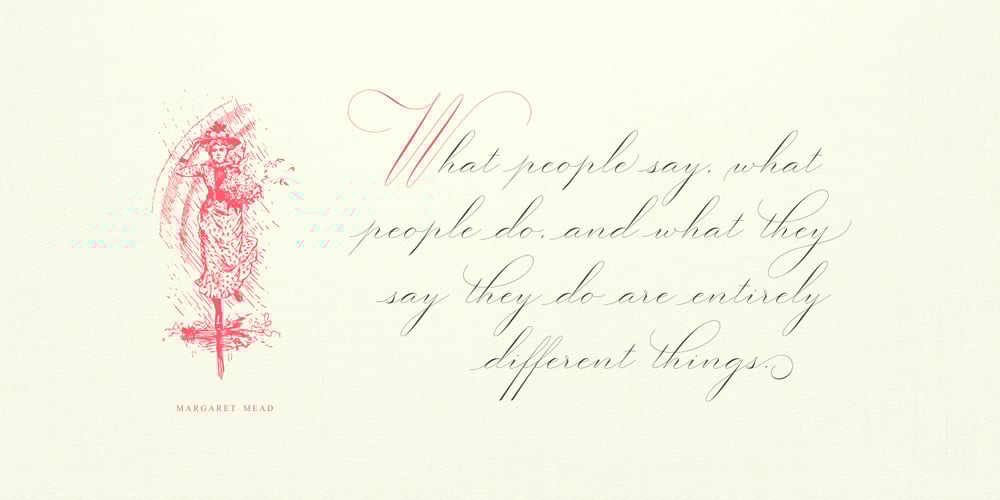
Gatlik Saphir Font Family was designed by Sukjana Almunandar and published by Alcode. Gatlik Saphir contains 1 styles and family package options. Gatlik Saphir is a classic font, I built it with my relaxed hands, designing a classic font but having a modern element in it, which makes it particularly suitable for wedding media, book covers, greeting cards, logos, branding, business cards and certificates, in fact for any design work that requires a clasik, formal or luxury. Try Gatlik Saphir, enjoy the richness of OpenType features and let her fun and elegant excitement make you happy and enhance your creativity! You can use this font very easily. Thank you for purchase!